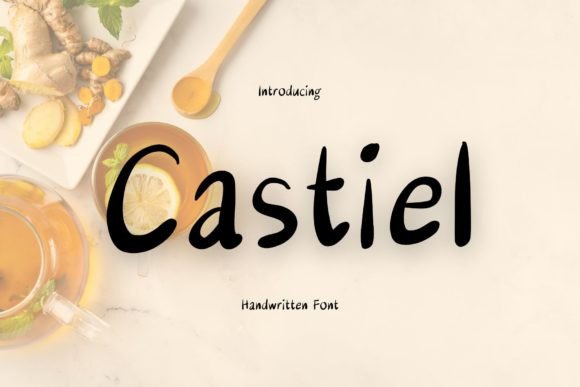
Introducing Castiel Font: The Ultimate Handwritten Font for Creative Projects
Are you tired of using the same old fonts for your designs? Look no further! Castiel Font is here to revolutionize your creative projects with its playful and authentic touch. This adorable handwritten font is perfect for designers, crafters, and DIY enthusiasts who want to add a personal touch to their work.
What Makes Castiel Font So Special?
Castiel Font embodies playfulness and authenticity, making it the ideal choice for a wide range of projects. Whether you’re creating blog posts, logos, branding materials, ads, invitations, greeting cards, planners, photo albums, or decorations, this font is sure to impress. Its unique and charming style will add a touch of personality to your designs, setting them apart from the rest.
Endless Design Possibilities with Castiel Font
One of the best things about Castiel Font is its versatility. You can use it for various design projects, including:
- Blog Posts: Add a personal touch to your blog posts and make them more engaging with Castiel Font.
- Logos and Branding: Create a unique and memorable brand identity with this charming font.
- Ads: Make your advertisements stand out with Castiel Font’s playful and eye-catching style.
- Invitations and Greeting Cards: Add a touch of warmth and personality to your invitations and greeting cards.
- Planners and Photo Albums: Create beautiful and functional planners and photo albums with Castiel Font.
- Decorations: Use this font to create stunning decorations, such as wall art, signs, and more.
Why Choose Castiel Font?
There are many reasons why Castiel Font stands out from the rest. Here are a few:
- Unique and Playful Style: Castiel Font has a one-of-a-kind style that will add a touch of personality to your designs.
- Easy to Read: This font is clear and easy to read, making it perfect for body text and headings.
- Versatile: Castiel Font can be used for a wide range of design projects, from digital to print.
- High-Quality: This font is designed with high-quality and precision, ensuring that it looks great in any design.
How to Use Castiel Font in Your Designs
Using Castiel Font in your designs is easy! Here are a few tips:
- Pair it with Other Fonts: Experiment with pairing Castiel Font with other fonts to create a unique and interesting design.
- Use it for Headings and Titles: Use Castiel Font for headings and titles to add a touch of personality to your designs.
- Experiment with Colors: Try out different colors with Castiel Font to create a design that’s eye-catching and engaging.
In conclusion, Castiel Font is a must-have for designers, crafters, and DIY enthusiasts who want to add a personal touch to their creative projects. With its playful and authentic style, this font is perfect for a wide range of designs, from blog posts to logos, branding, ads, invitations, and more. So why wait? Add Castiel Font to your designs today and enjoy the results!
Whether you’re a seasoned designer or a beginner, Castiel Font is easy to use and can help take your designs to the next level. So don’t miss out on this amazing opportunity to elevate your designs and make them more engaging and memorable. Try Castiel Font today and see the difference for yourself!